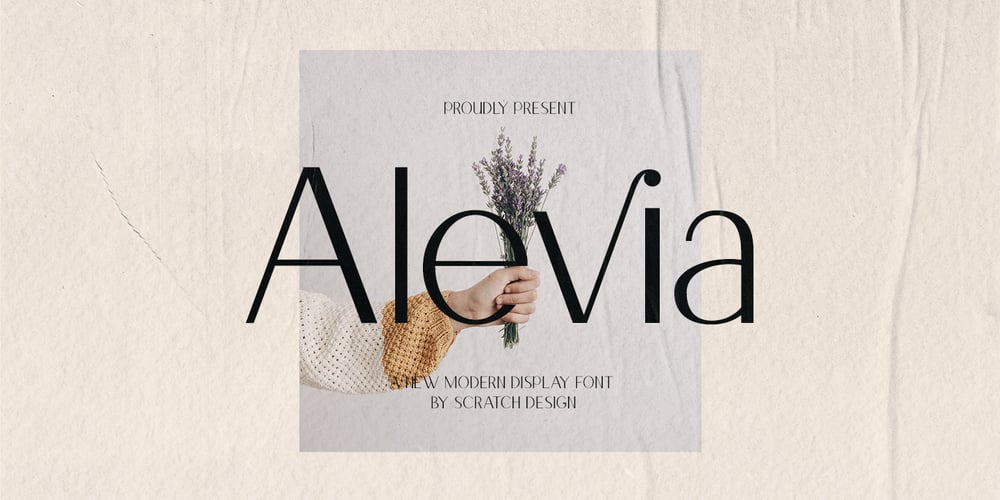
Alevia Font Family was designed by Gitayogi Irhandi and published by Scratch Design. Alevia contains 1 styles and family package options. Alevia is a modern display sans serif with a clean and minimalist touch. It has a sophisticated, and elegant typeface design. This beautiful font has been designed for projects which are suitable for modern & elegant design, such as branding, packaging, magazines, logos, social media, websites, headers, and many more. Alevia includes: Letters Numbers Symbols & Punctuation Multilingual Support Beautiful Ligatures If you have any questions, please feel free to contact us. Thanks!